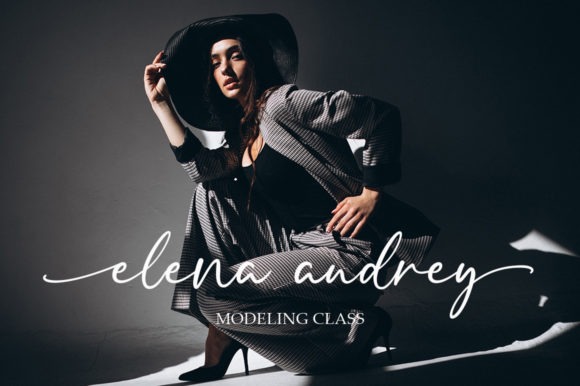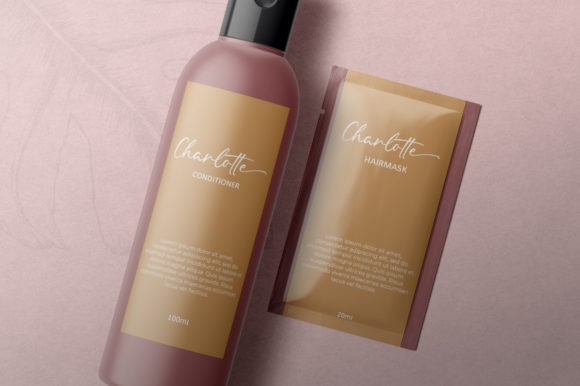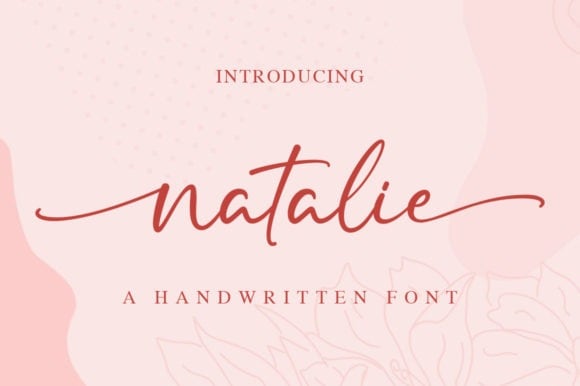
Natalie Script Font
This font designed by Graphix Line Studio is modern classy calligraphy typeface, this font come with beautiful ligature and lovely alternate. Fall for its ravishing style and use it to create gorgeous wedding invitations, beautiful stationary art, eye-catching social media posts, and much more! Natalie is PUA encoded which means you can access all glyphs and swashes with ease!